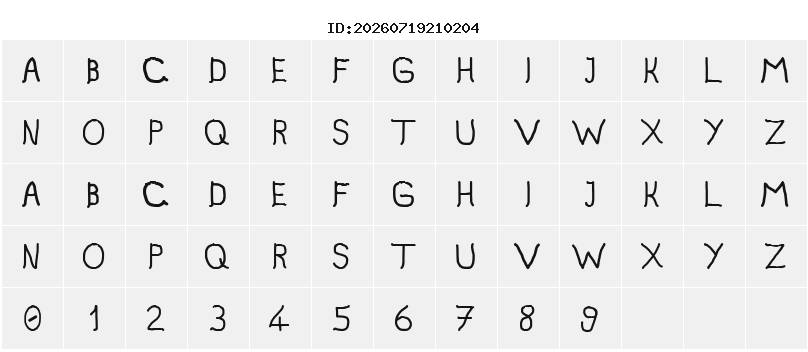
Erkan tr.ttf is a modern, elegant sans-serif font designed for ultimate readability and visual harmony. Perfect for branding, headlines, web design, and print materials.